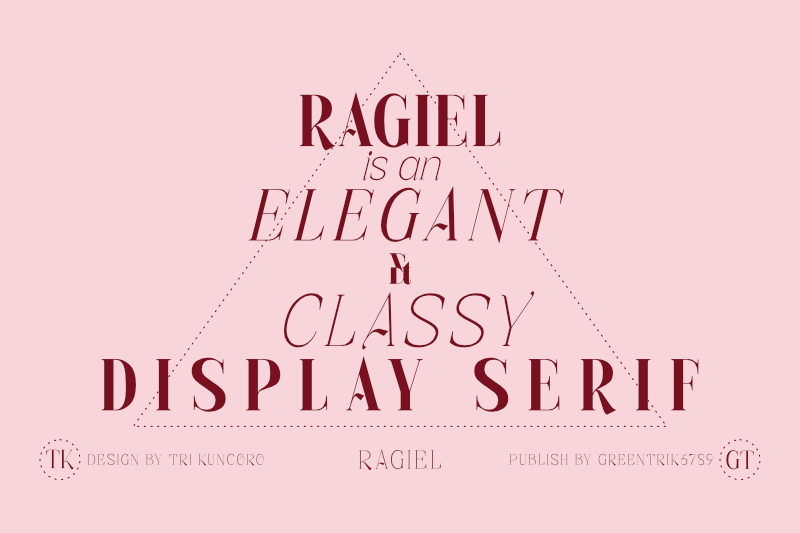
Ragiel is a classy and elegant serif font. Fall for its ravishing style and use it to create gorgeous wedding invitations, beautiful stationary art, eye-catching social media posts, and much more! For commercial need ->> https://www.creativefabrica.com/product/ragiel/ref/237607/ |